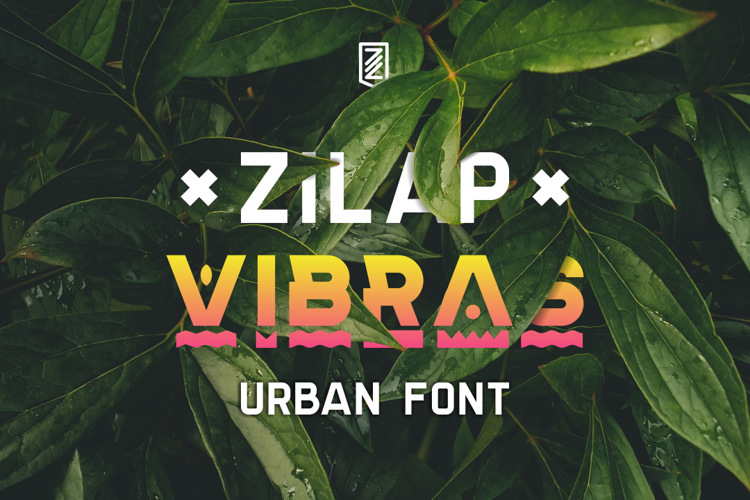
Zilap Vibras Font
Zilap Vibras is a strong urban font with a crisp and balanced look.
Its lowercase version offers dynamic and fun playfulness.
Perfect for creating wonderful variations between uppercase and lowercase.
Ideal for music designs, posters, headlines, streetwear, logos, sports and electronics, etc.